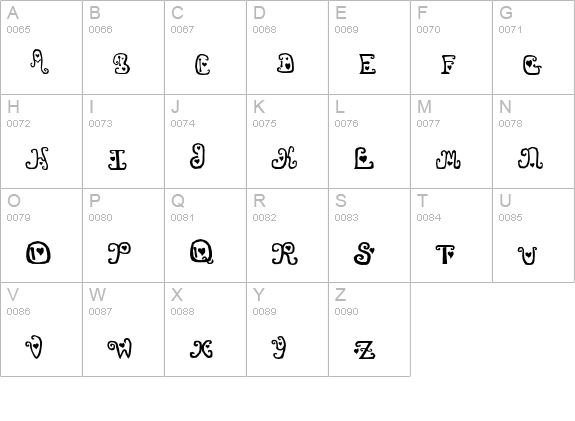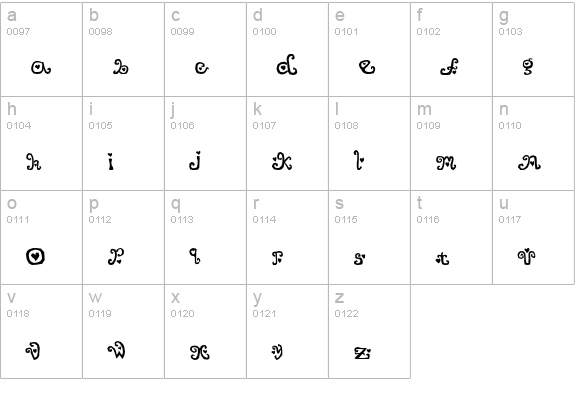
That's Amore font is a beautifully crafted typeface that exudes elegance and charm. With its graceful curves and intricate details, it captures the essence of romance and sophistication. This font is perfect for adding a touch of class to any design project, whether it be wedding invitations, love letters, or romantic quotes. But what makes That's Amore font truly special is that it is not only stunning, but also free! Yes, you heard it right. This stunning typeface can be freely downloaded at FontsMarket.com, making it accessible to everyone who appreciates fine typography without breaking the bank. Whether you're a professional designer or simply someone who loves to experiment with different fonts, That's Amore font is a must-have in your collection. Its versatility allows it to be used in a variety of contexts, from branding and logo design to social media graphics and advertising materials. The attention to detail in That's Amore font is truly remarkable. Each letter is meticulously crafted, resulting in a harmonious and balanced typeface that is a pleasure to read. The smooth curves and graceful strokes give it a sense of fluidity and movement, adding a touch of playfulness to its overall sophistication. So don't miss out on this incredible opportunity to enhance your designs with the beauty of That's Amore font. Download it for free at FontsMarket.com and let your creativity soar. Whether you're designing for a special occasion or simply want to add a touch of romance to your everyday projects, That's Amore font is sure to make a lasting impression.